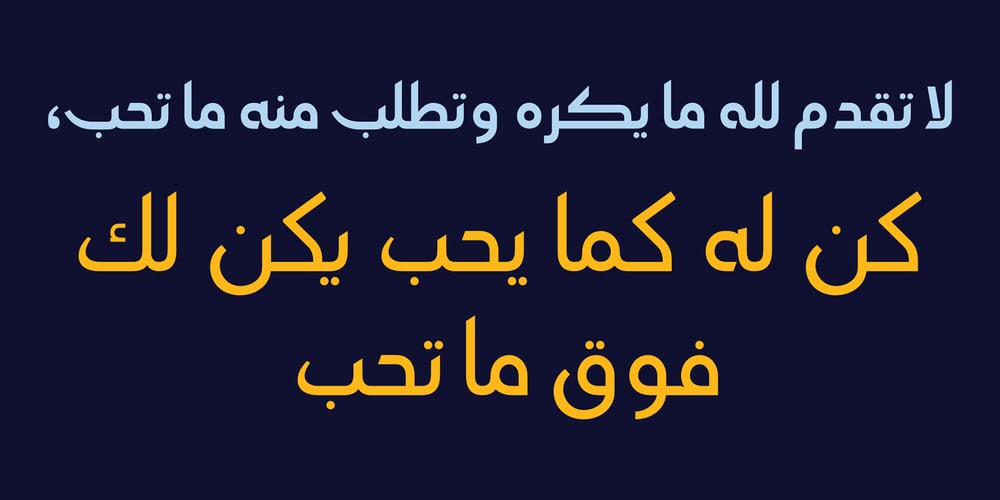
HS Amal Font Family was designed by Hasan Abu Afash and published by Hiba Studio. HS Amal contains 7 styles and family package options. Originally released in 2008, the Hasan Amal typeface introduced a modern OpenType Arabic design, blending elements of both Kufi and Naskh styles. It features a mix of curvy and sharp segments, along with refined letterforms that enhance readability. Hasan Amal is versatile, suitable for both titles and text in contemporary graphic and publication projects. The typeface supports Arabic, Persian, and Urdu languages. Initially offered in three weights—light, regular, and bold—it has now evolved into the HS Amal family, an OpenType collection with seven weights, enriched with various stylistic alternatives and additional features.